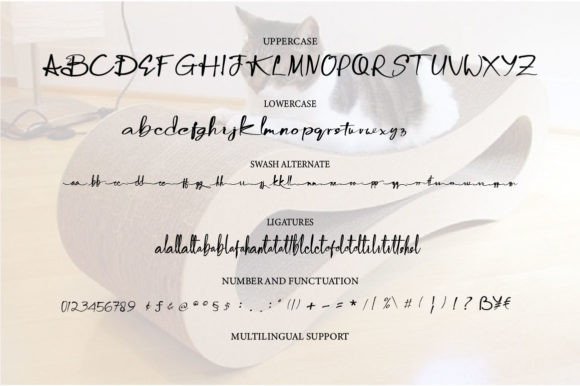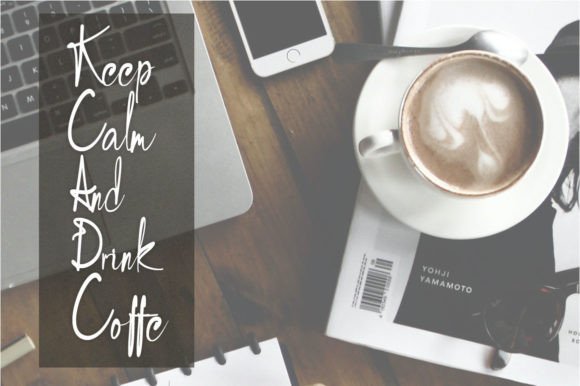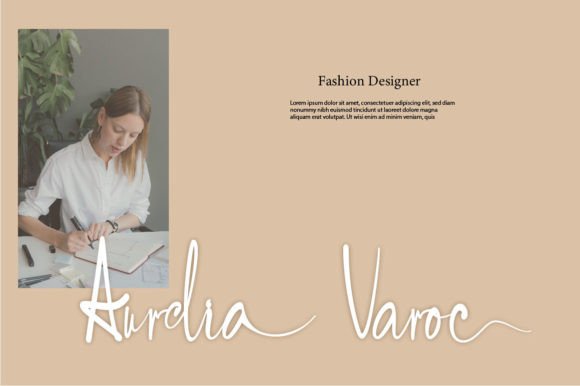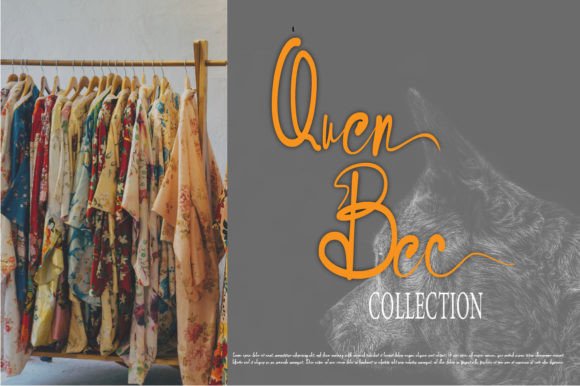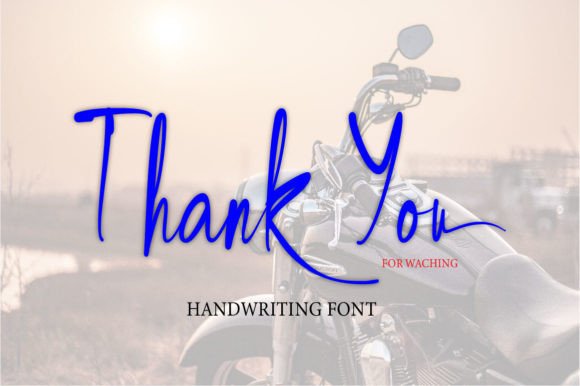
Introducing Baleeblank: The Elegant and Modern Script Font for Creative Designs
In the world of typography, a new addition has emerged that’s making waves among designers and crafters alike. Say hello to Baleeblank, an elegant and modern script font that’s perfect for a wide range of creative projects. Whether you’re designing wedding invitations, social media graphics, cards, web designs, flyers, or anything in between, Baleeblank is the perfect choice to add a touch of sophistication and style.
What Makes Baleeblank Special?
Baleeblank is more than just a font – it’s an experience. With its flowing lines, beautiful connections, and exquisite details, this script font is designed to elevate your designs to the next level. Its modern and elegant feel makes it perfect for designs that require a touch of luxury, sophistication, and refinement.
Key Features of Baleeblank Font
• Elegant and Modern Design: Baleeblank boasts a sleek and contemporary design that’s perfect for creating stunning visual content.
• Script Font: With its beautiful connections and flowing lines, Baleeblank is a true script font that’s perfect for adding a touch of elegance to your designs.
• Versatile: Whether you’re designing wedding invitations, social media graphics, or web designs, Baleeblank is the perfect choice for a wide range of creative projects.
• Easy to Read: Despite its elegant design, Baleeblank is easy to read, making it perfect for body text and headlines.
Use Cases for Baleeblank Font
Baleeblank is a versatile font that can be used in a wide range of creative projects, including:
• Wedding Invitations: Add a touch of elegance and sophistication to your wedding invitations with Baleeblank.
• Social Media Graphics: Create stunning social media graphics with Baleeblank, perfect for promoting your brand or business.
• Cards: Design beautiful cards for special occasions, such as birthdays, anniversaries, and holidays.
• Web Design: Use Baleeblank to create elegant and modern web designs that will leave a lasting impression on your visitors.
• Flyers: Design eye-catching flyers with Baleeblank, perfect for promoting events, products, or services.
Why Designers and Crafters Love Baleeblank
Baleeblank has quickly become a favorite among designers and crafters, and for good reason. Here are just a few reasons why:
• Unique and Creative: Baleeblank offers a unique and creative way to add a touch of elegance and sophistication to your designs.
• Easy to Use: With its clean and simple design, Baleeblank is easy to use, even for those who are new to design.
• High-Quality: Baleeblank is a high-quality font that’s designed to deliver exceptional results, even at small sizes.
In conclusion, Baleeblank is an elegant and modern script font that’s perfect for a wide range of creative projects. With its flowing lines, beautiful connections, and exquisite details, Baleeblank is sure to elevate your designs to the next level. Whether you’re a designer, crafter, or simply someone who appreciates great typography, Baleeblank is a must-have font that’s sure to impress.